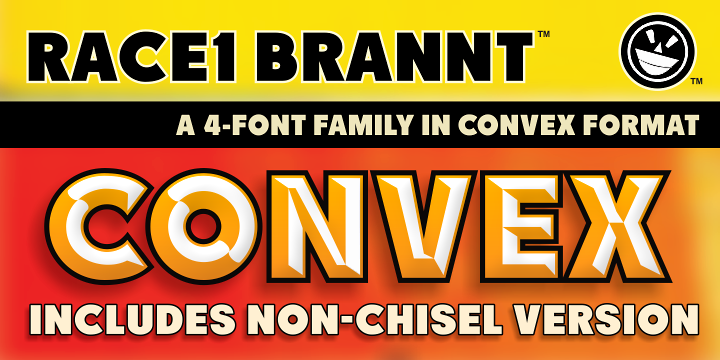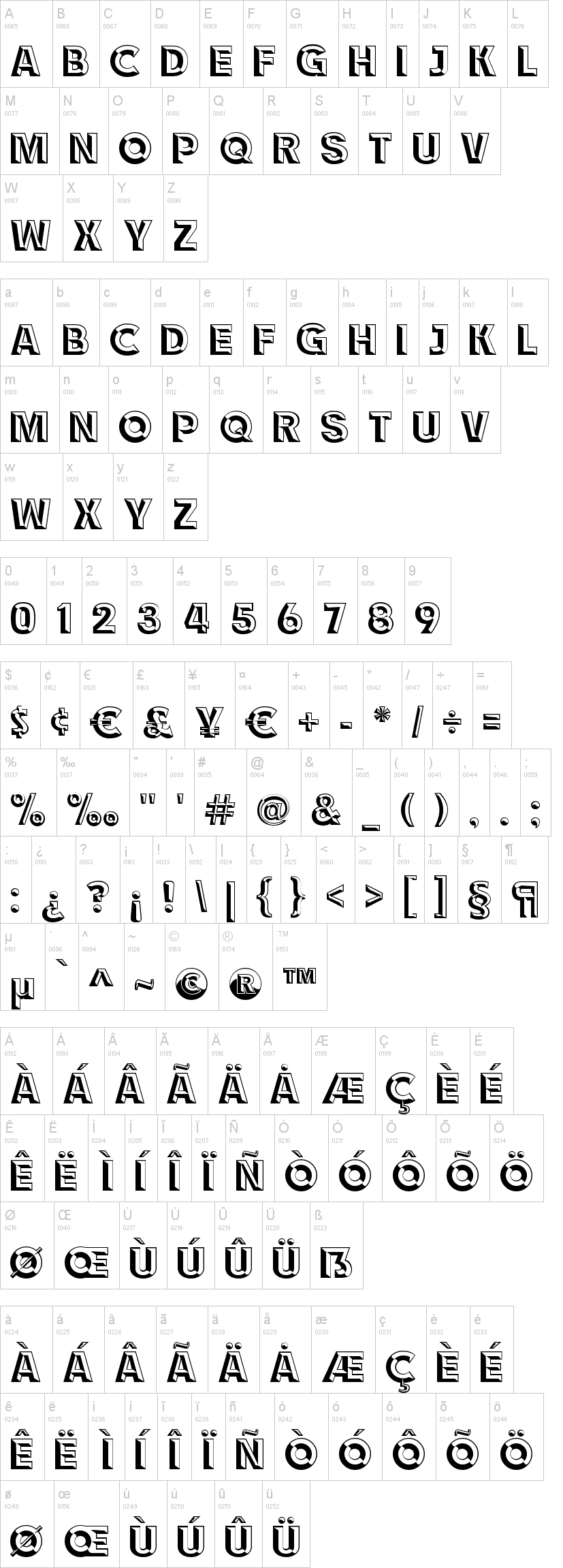
Go fast around the track with the RACE1 Brannt family. Brannt is perfectly at home on the race-track or off. Slap it on a sign or a billboard for bold legibility--with or without the chisels. Or put it on a race-car and get ready to roar. Though I suspect you'll want the convex effect for track applications. And if Brannt isn't enough, if you want even more options, switch to Brannt Plus. It has a unique set of numbers and a uniformity amongst its letterforms not seen in the normal Brannt font.
And when you buy the commercial version of the Brannt family, you can start to explore your softwares character map for OpenType replacment features, plus theres a layering effect to simplify the breakdown of the colors. By selecting from the style menu, the chiseled version of Brannt can be assembled with a background outline, the main glyph outline, and the foreground chisel effect. Stack up these three layers, set the colors, and simply, GO-!!!
And yes, the commercial version of Brannt comes complete with a lowercase range of characters.